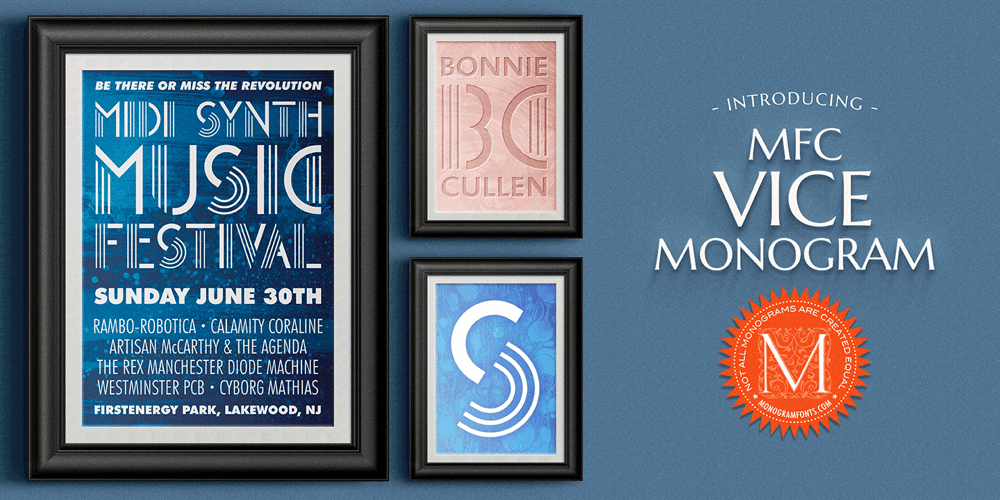
MFC Vice Monogram Font Family was designed by Brian J. Bonislawsky and published by Monogram Fonts Co.. MFC Vice Monogram contains 4 styles and family package options. The source of inspiration for Vice Monogram is an Art Deco letterset (capitals only) from a 1915 publication by Cartier-Bresson of Paris containing classic and modern monogram patterns for embroidery. This Art Deco monogram style has been redrawn, balanced, and brought into the digital age for your type-setting use and enjoyment. Vice Monogram can create one-, two-, or three-letter monograms as well as basic headline and titling settings. By default, Vice Monogram types in a horizontal format, but by utilizing Opentype Contextual Alternates, you can typeset in a three smallcap or smallcap-Capital-smallcap diagonal format as well! It is a refined vintage look that is perfect for a wide array of classic personalization settings. Download and view the MFC Vice Monogram Guidebook if you would like to learn a little more.